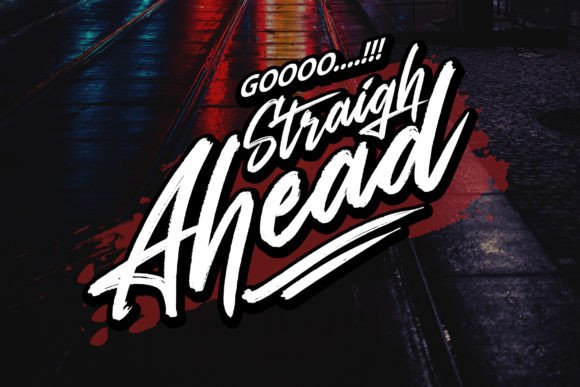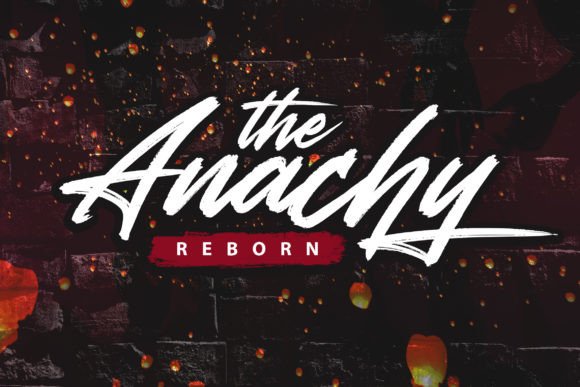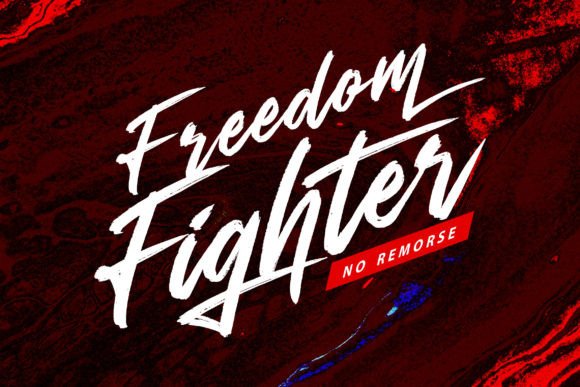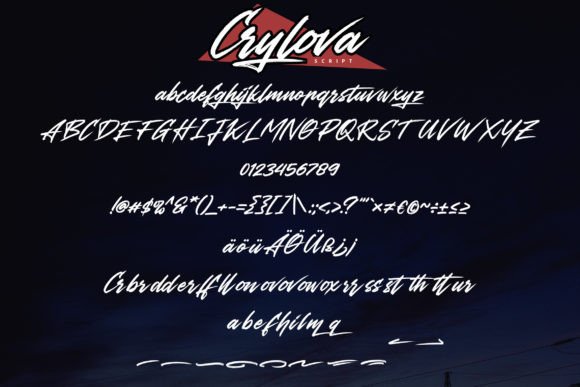
Crylova Font: Elevate Your Designs with a Stylish Handwritten Brush Font
Are you tired of using the same old fonts in your designs? Look no further than Crylova, a stunning handwritten raw brush font that’s sure to become your new favorite. With its contemporary and fresh style, Crylova is perfect for any design project you wish to create. Whether you’re a designer, crafter, or DIY enthusiast, this versatile font is sure to make your projects stand out.
What Makes Crylova Special?
Crylova is more than just a font – it’s an experience. Its raw, brush-stroked texture gives it a unique, hand-crafted feel that’s perfect for creating eye-catching designs. The font is masterfully crafted to convey a sense of elegance and sophistication, making it ideal for a wide range of applications, from branding and advertising to packaging and digital media.
Key Features of Crylova Font
- PUA Encoded: Crylova is PUA (Private Use Area) encoded, which means you can access all the glyphs and ligatures with ease. This makes it simple to use and customize the font to suit your needs.
- Handwritten Style: Crylova’s handwritten style gives it a personal, human touch that’s perfect for creating designs that resonate with your audience.
- Contemporary and Fresh: The font’s modern style ensures it will fit right in with the latest design trends, while its unique texture sets it apart from more generic fonts.
- Versatile: Crylova is perfect for a wide range of design projects, from logos and branding to social media graphics, posters, and more.
Why Choose Crylova for Your Designs?
There are many reasons why Crylova is an excellent choice for designers and crafters. For one, its unique texture and style ensure that your designs will stand out from the crowd. Additionally, the font’s PUA encoding makes it easy to use and customize, saving you time and effort.
How to Use Crylova in Your Designs
Using Crylova in your designs is easy. Here are a few tips to get you started:
- Pair it with Other Fonts: Crylova pairs well with a variety of other fonts, so don’t be afraid to experiment with different combinations to find the perfect look for your design.
- Experiment with Colors: The font’s texture looks great in a range of colors, so try experimenting with different hues and shades to find the perfect fit for your design.
- Use it for Headlines and Titles: Crylova’s bold, eye-catching style makes it perfect for headlines and titles. Use it to add a touch of elegance and sophistication to your designs.
Who Can Benefit from Using Crylova?
Crylova is perfect for a wide range of designers and crafters, including:
- Graphic Designers: Crylova is a great addition to any graphic designer’s toolkit. Use it to create stunning logos, branding materials, and more.
- Digital Artists: The font’s unique texture and style make it perfect for digital artists looking to add a touch of elegance to their work.
- Crafters: Whether you’re creating handmade cards, scrapbooking, or DIY projects, Crylova is a great choice for adding a personal touch to your crafts.